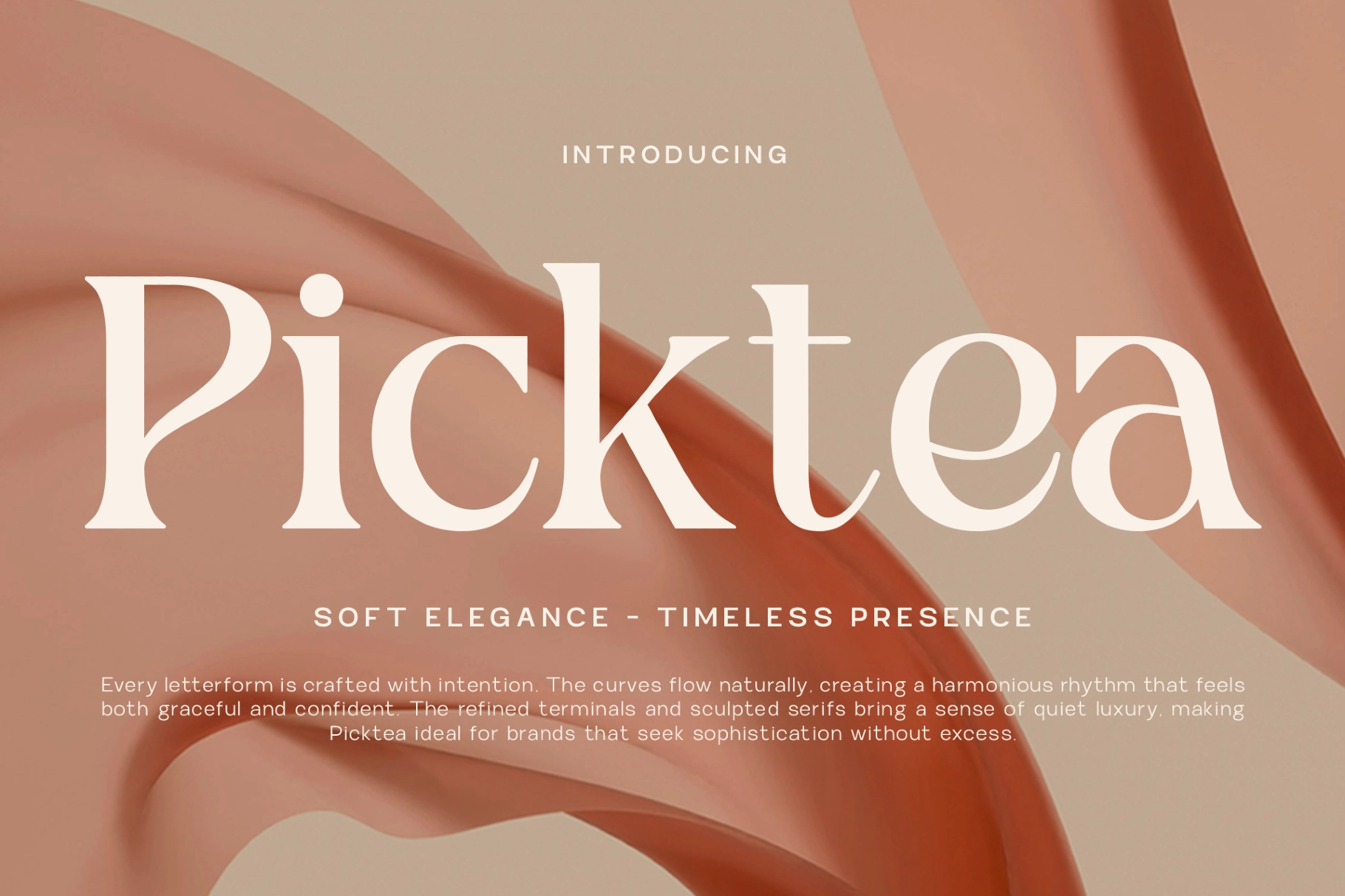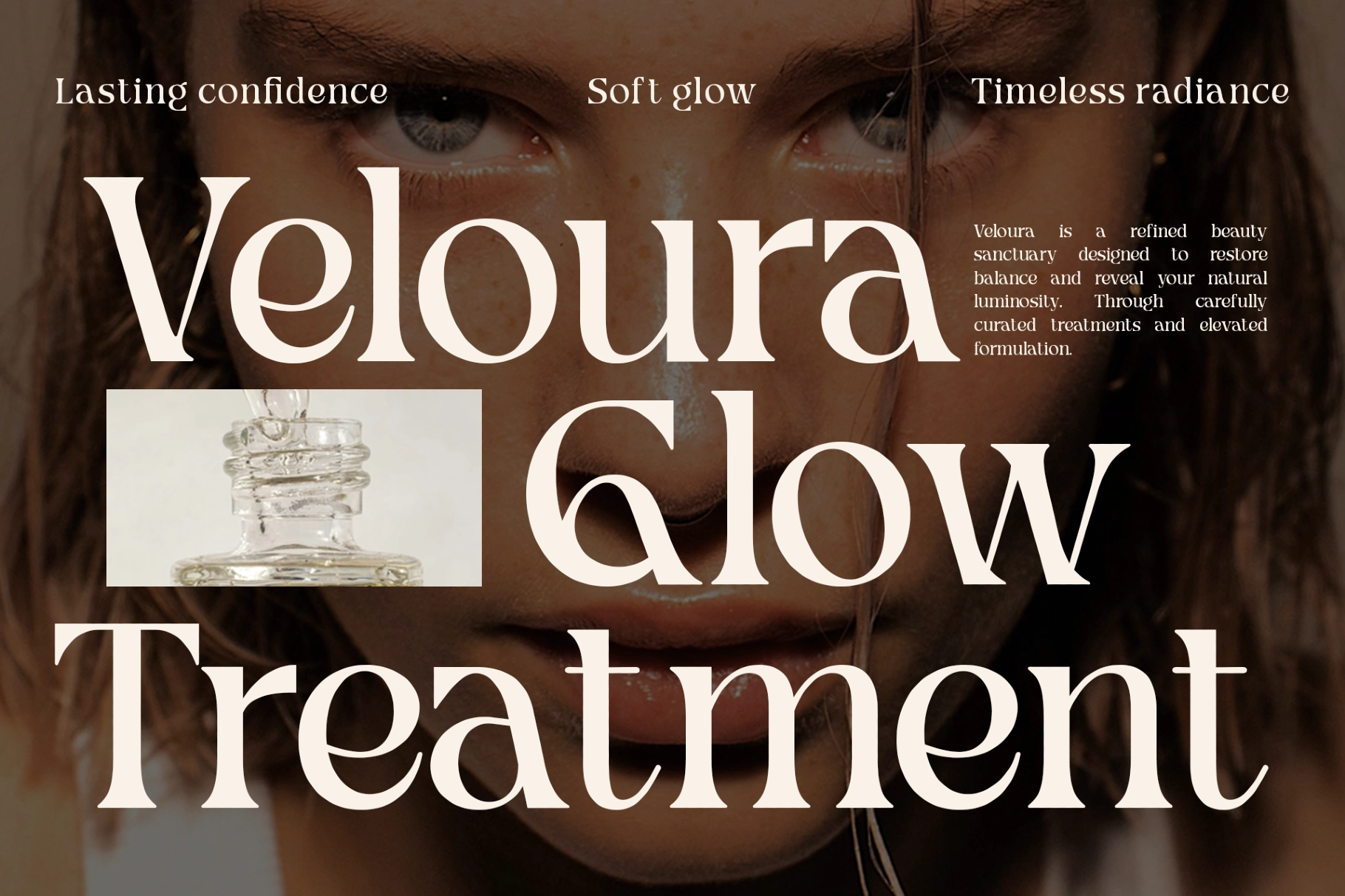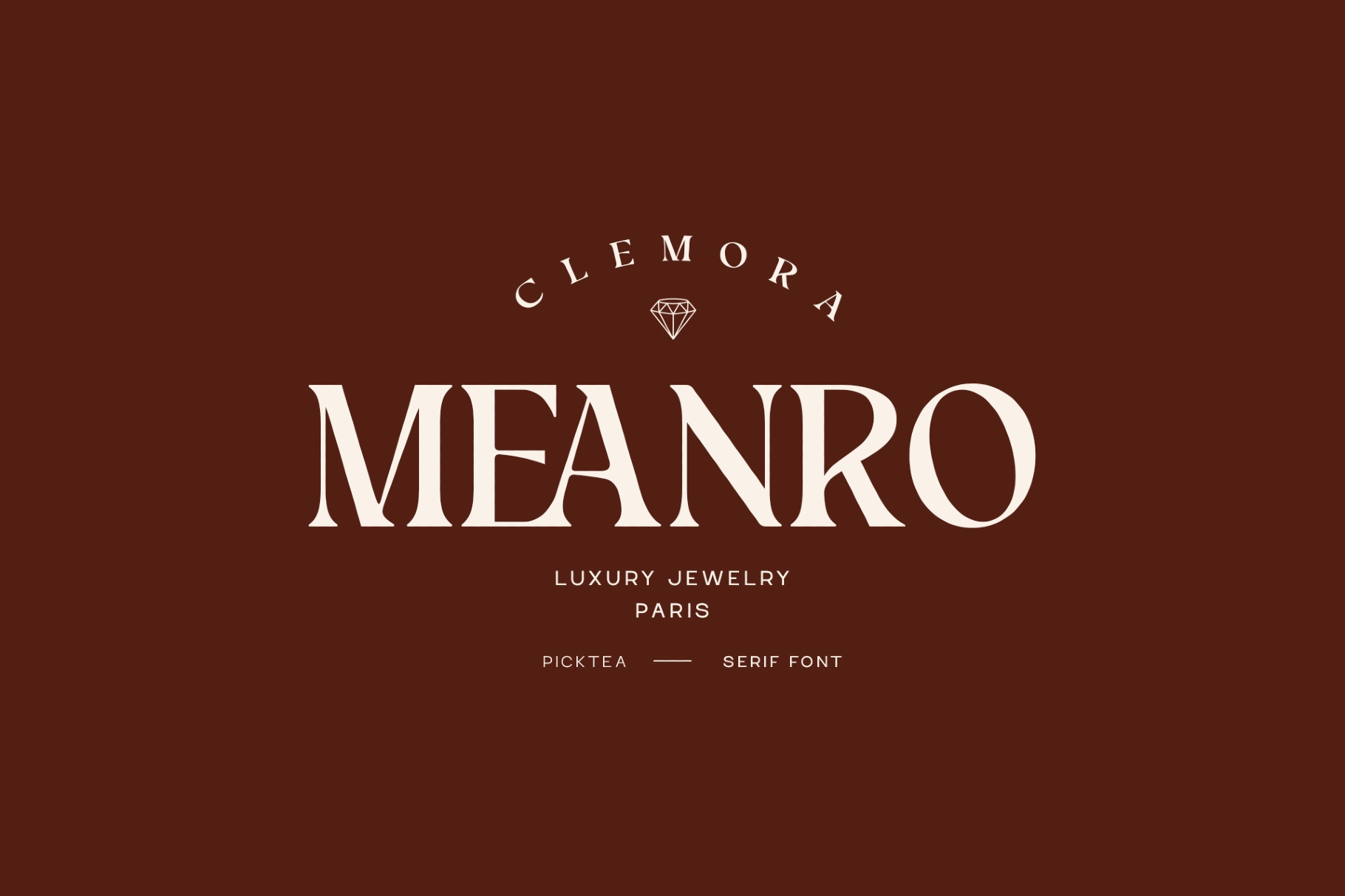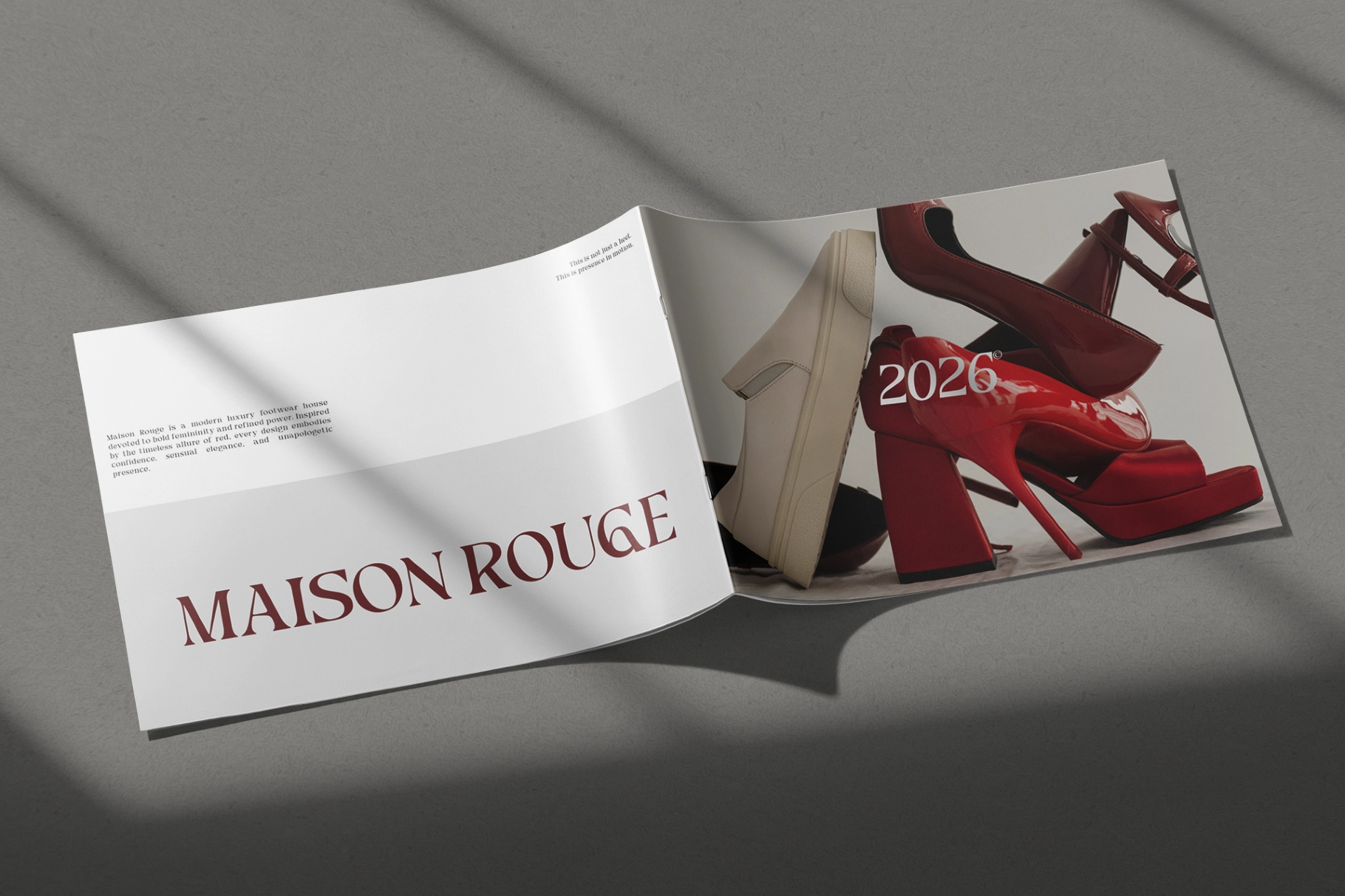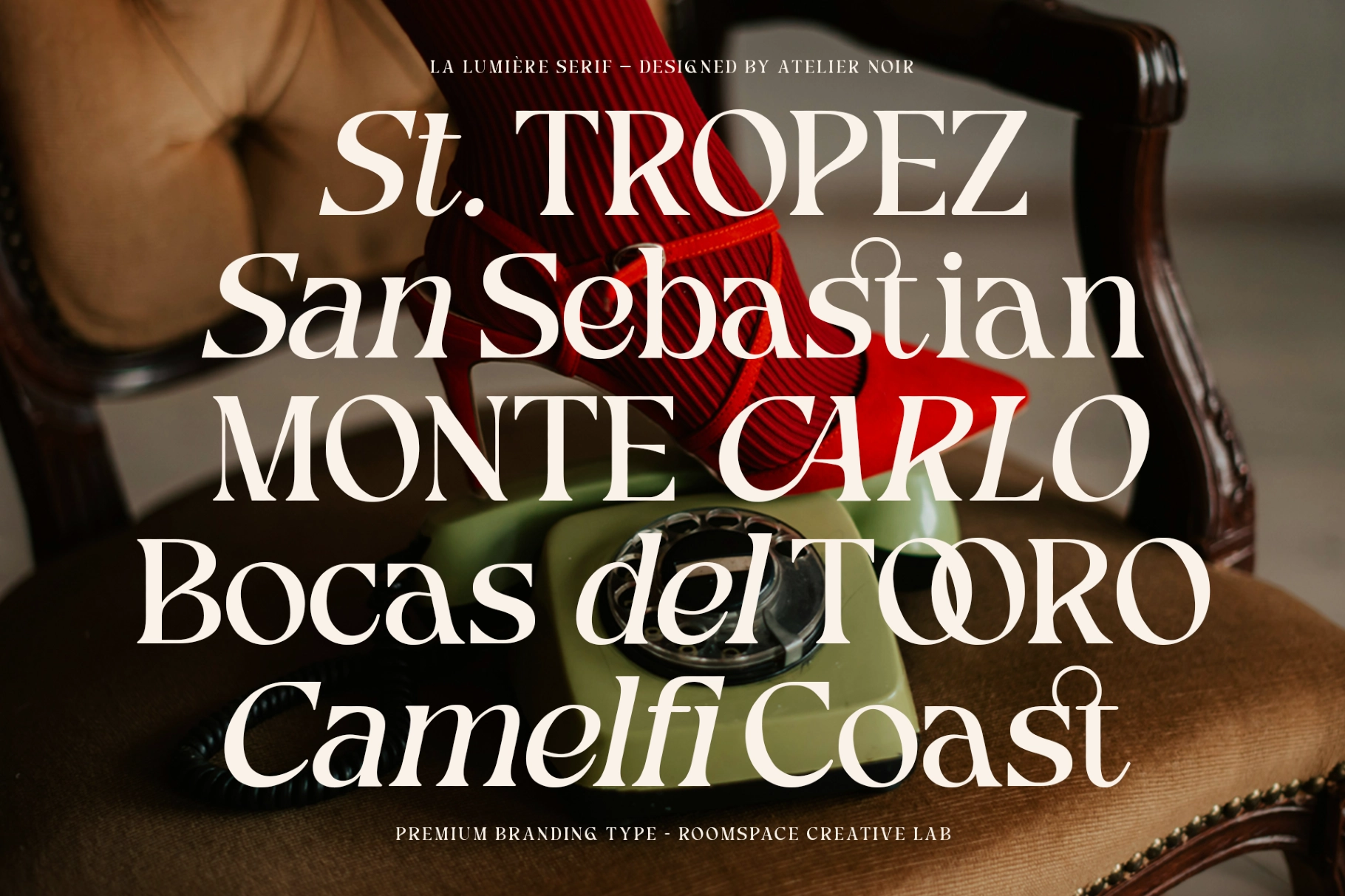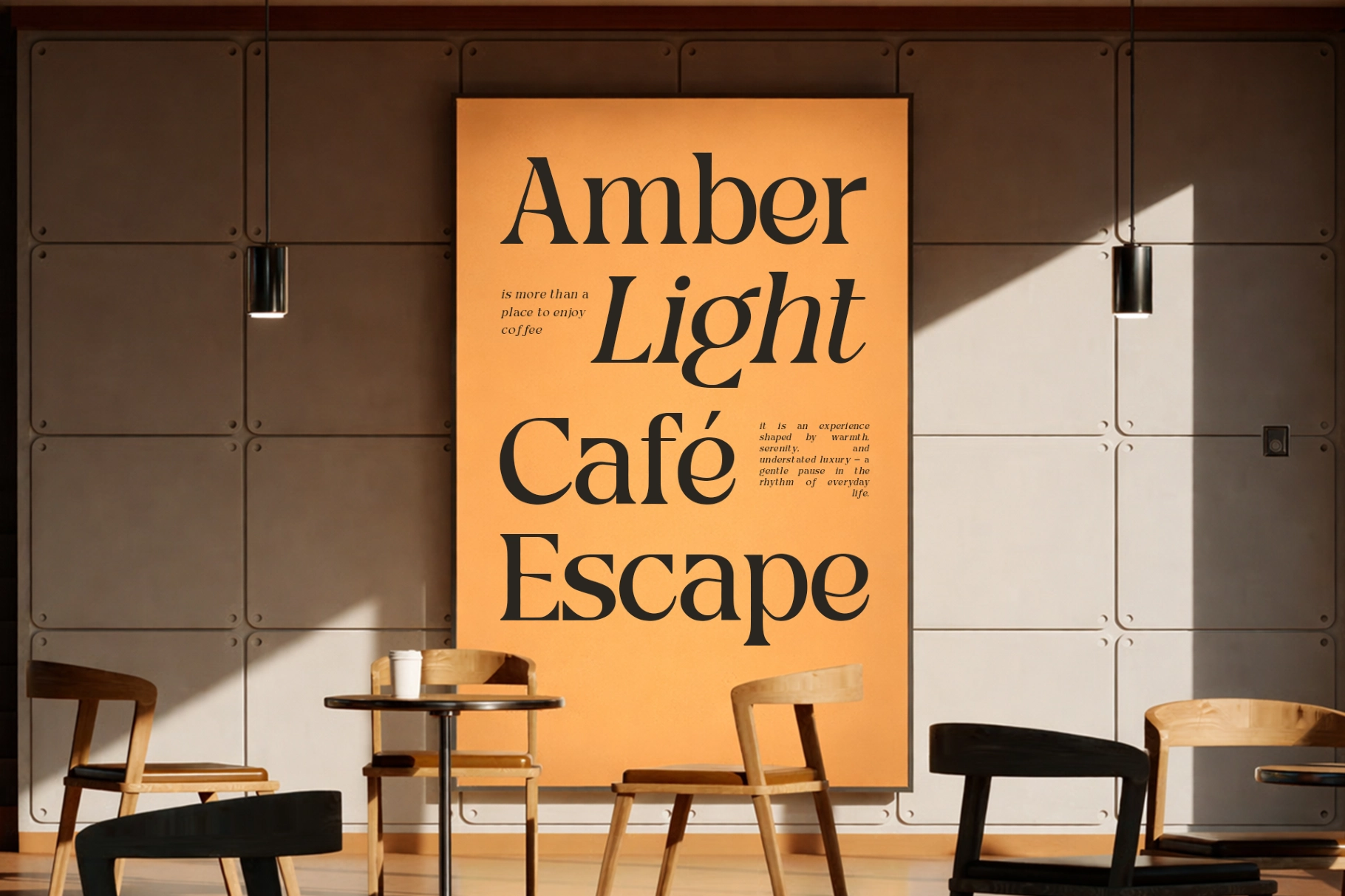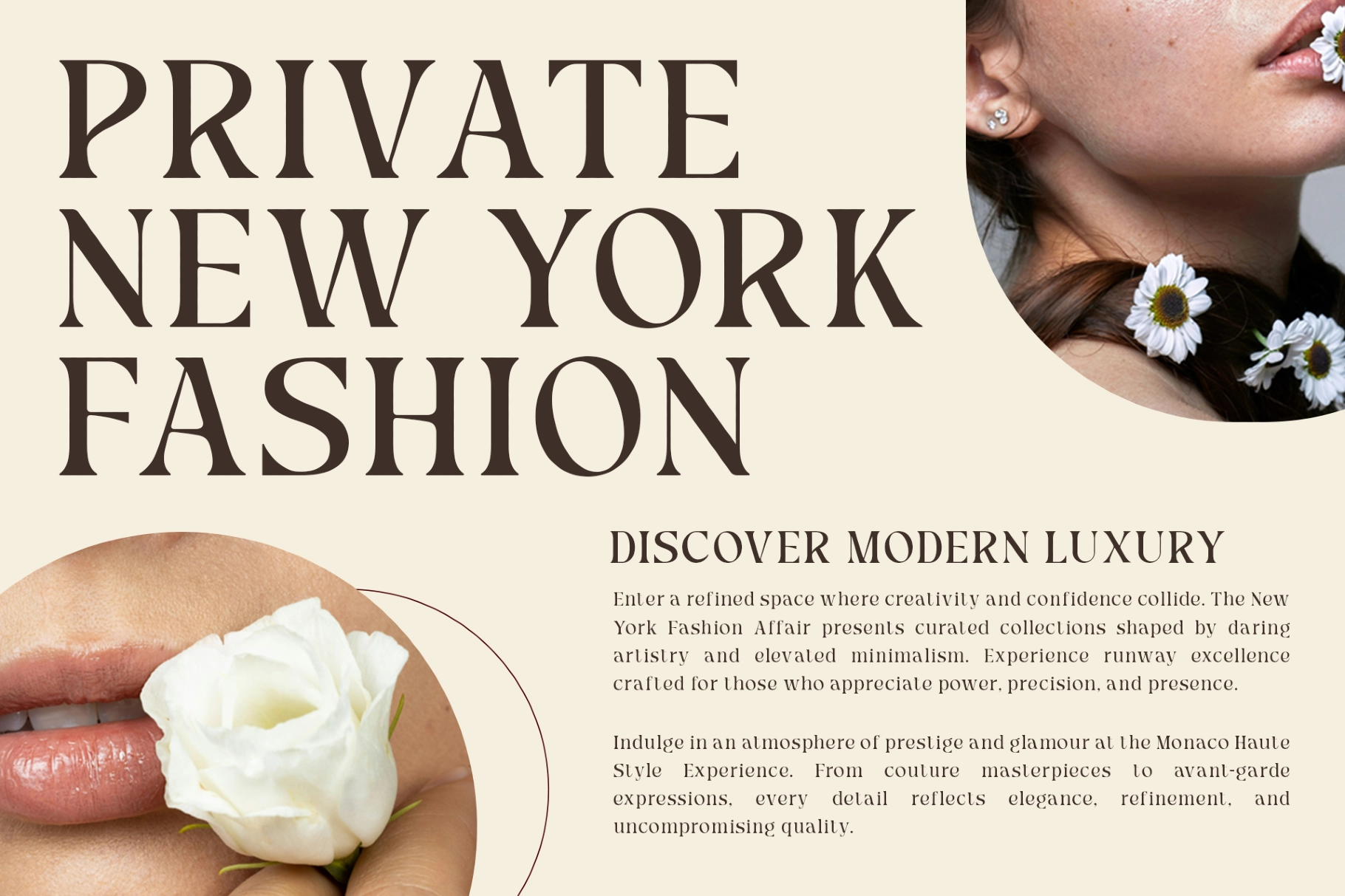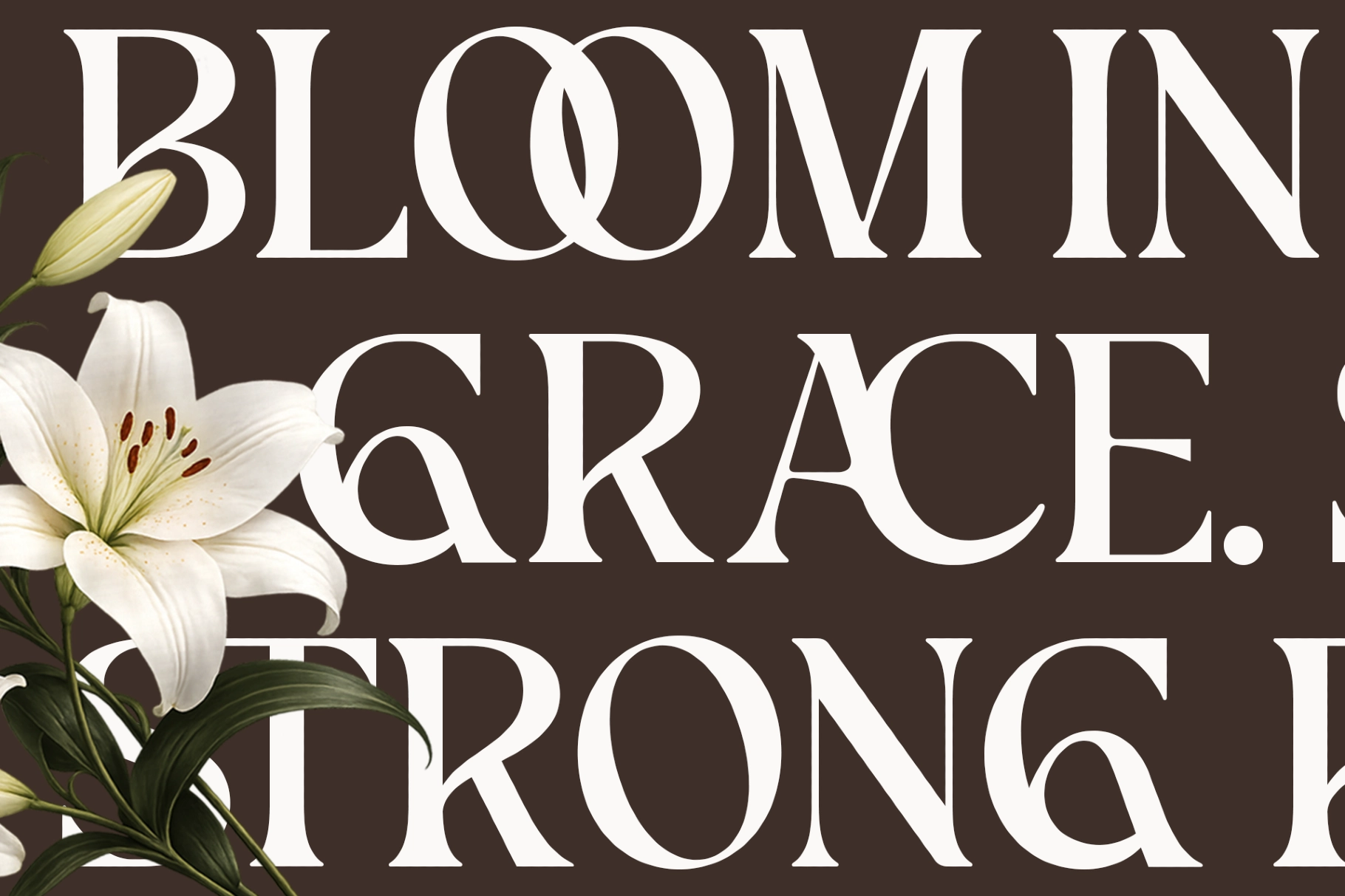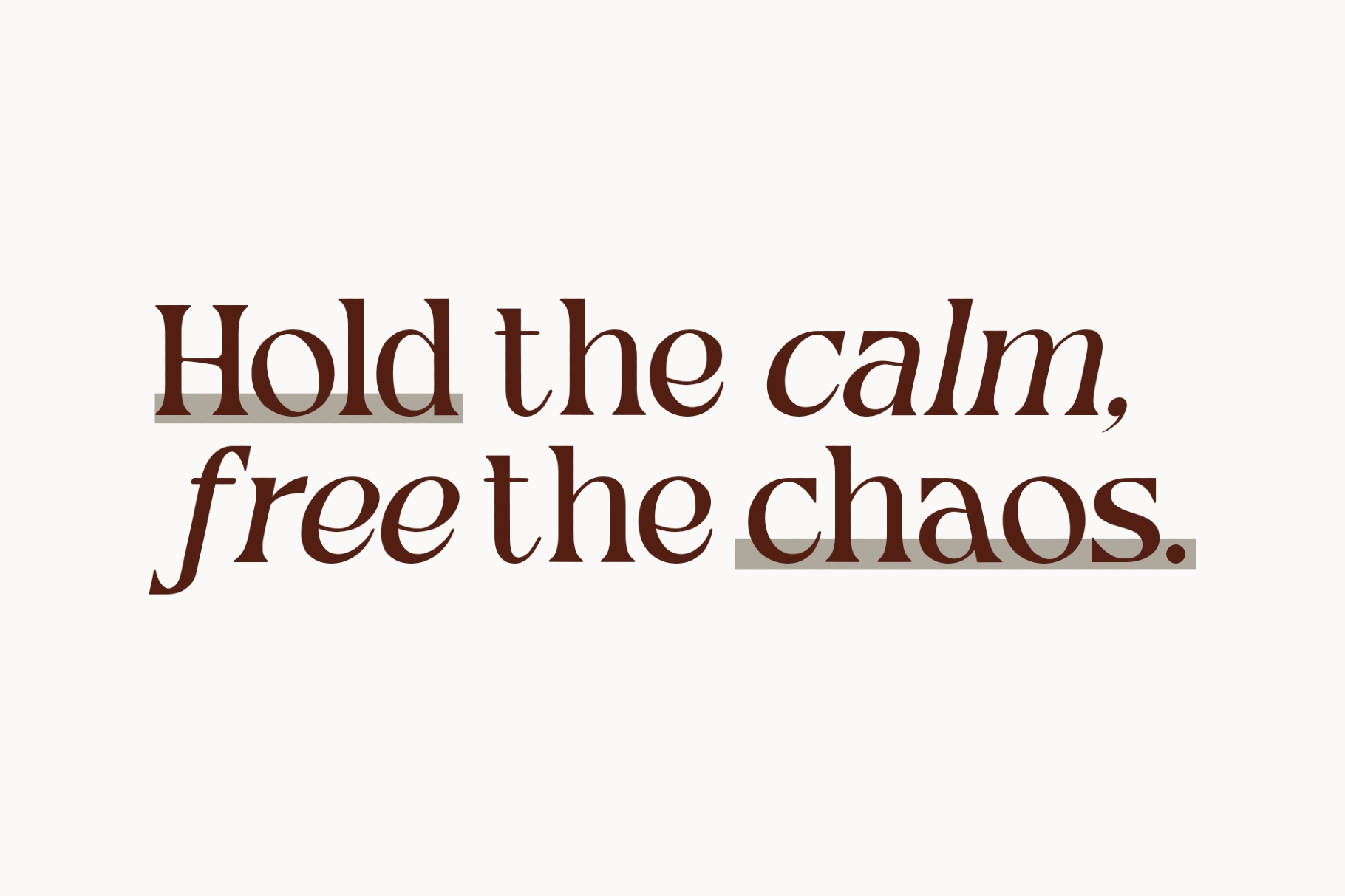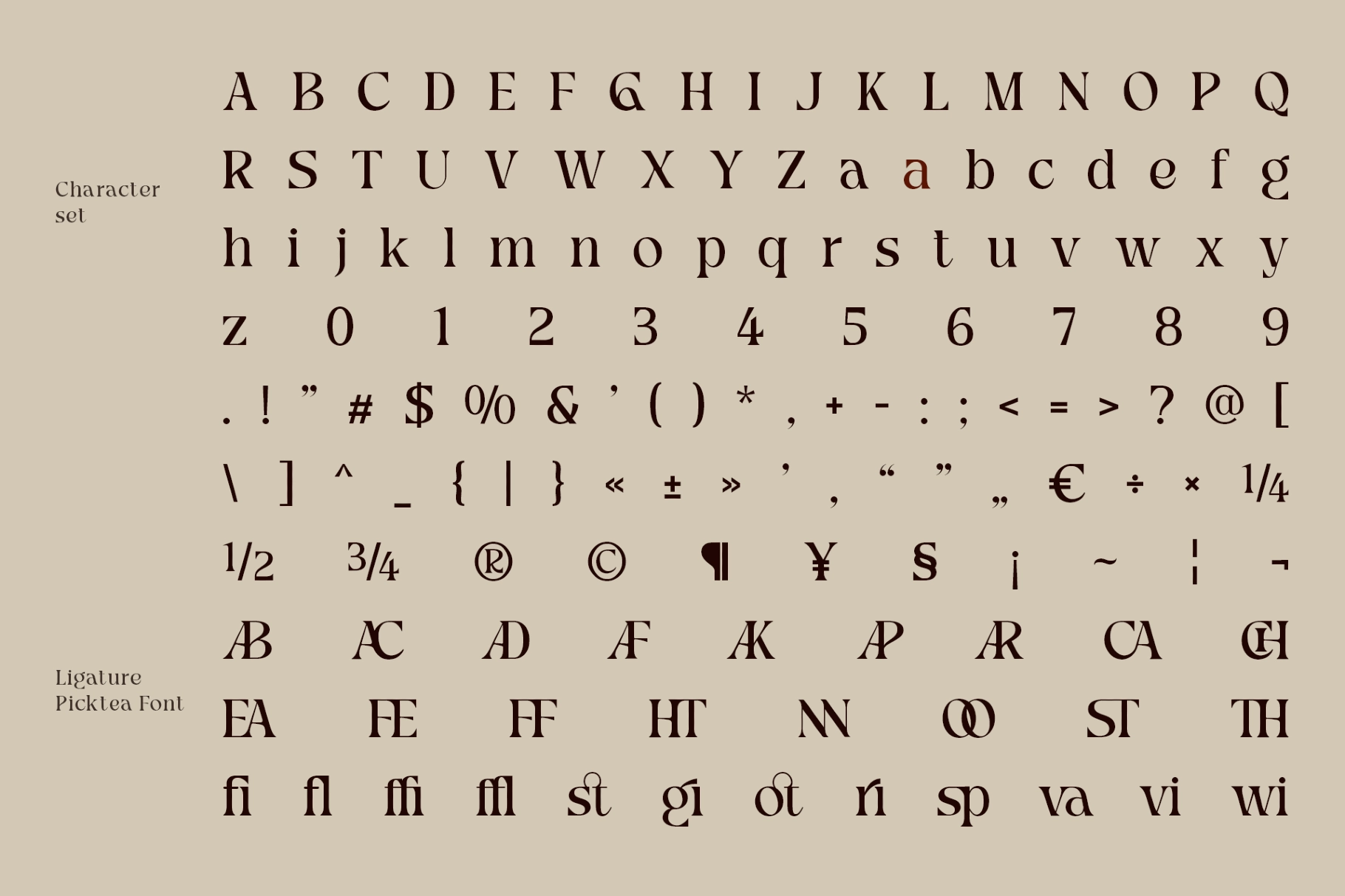
Picktea – Elegant Modern Serif Font
This elegant serif font has sculpted serifs, smooth curves, and poised contrast made for polished brand systems. Its Regular and Italic styles give headlines a refined voice, with ligatures adding extra finesse for logos, campaign titles, and editorial typography.
Use Picktea for luxury branding, fashion campaigns, beauty packaging, magazine covers, skincare labels, boutique logos, wedding stationery, perfume ads, lookbooks, social media graphics, art direction boards, website headers, and more. It works especially well in large display settings, where the letterforms can take up space with very good manners.
• 2 styles: Regular, Italic
• Ligatures